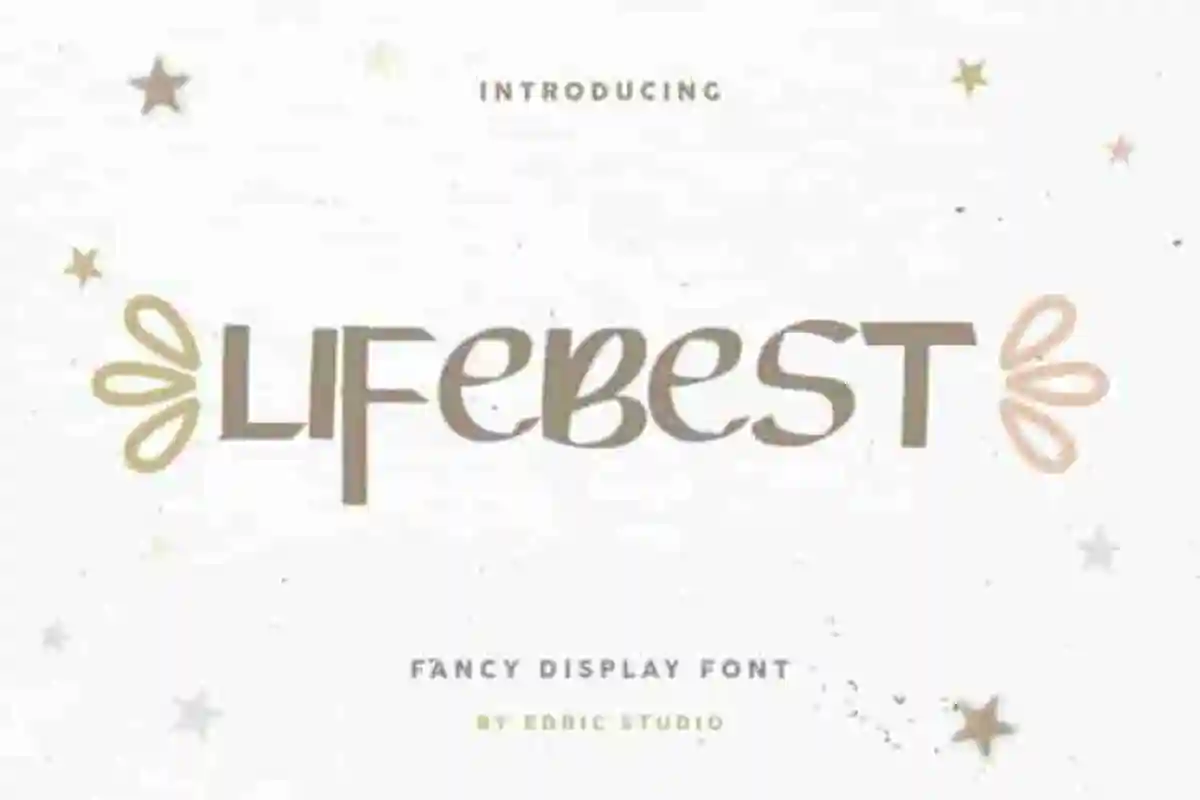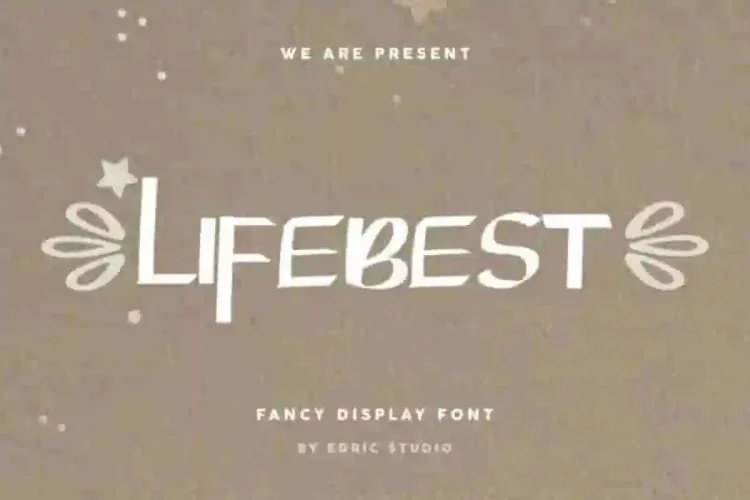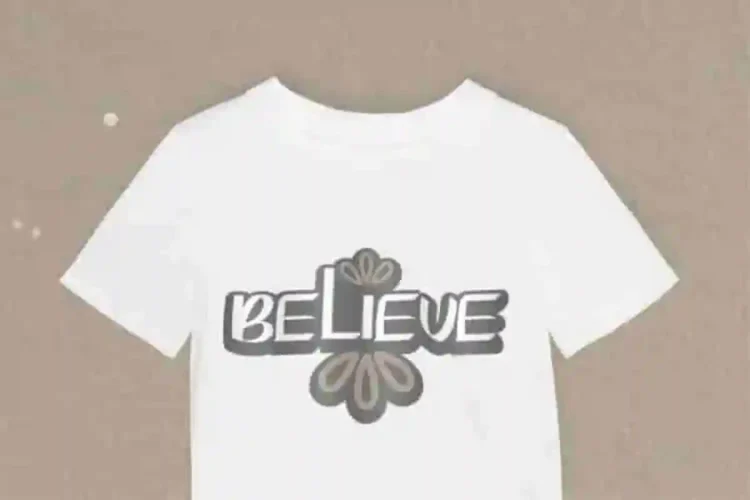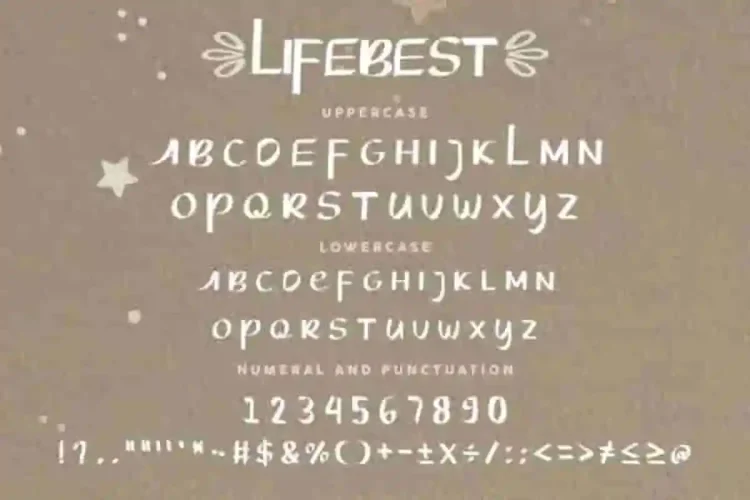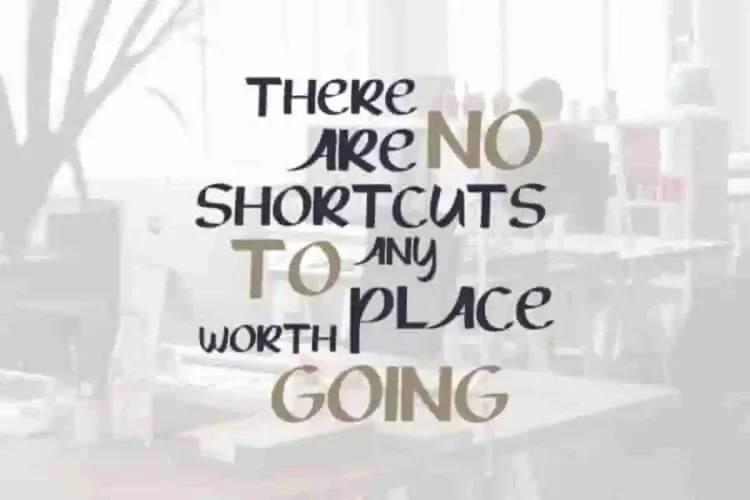
Lifebest Fancy Display Font
Lifebest Display Font is a fancy script font with unique style. Made with passion in our Studio, Indonesia. Lifebest Font is an exclusive display font with unique styles : fun, casual, stylish and classic style. It has a great characters set, perfectly managed with well spaced and kerning. Lifebest Display Font will be great for any projects  including : branding, logo (with extended license), stationery, business card, signage, flyer, brochure etc. Many industries will be match for this typeface: school, wedding, events, non profits foundation, florist, gardening, makeup artist, travel, hotel, musician etc.